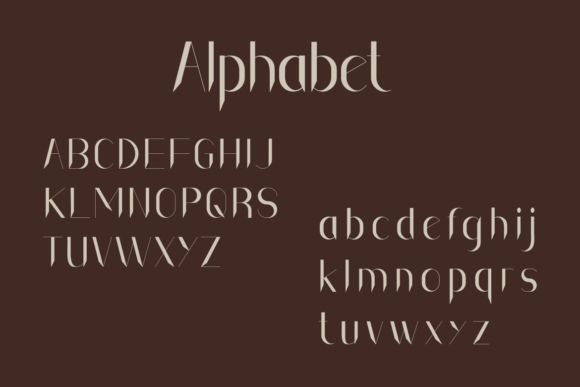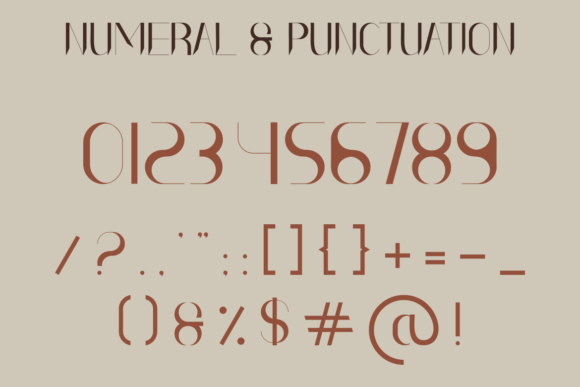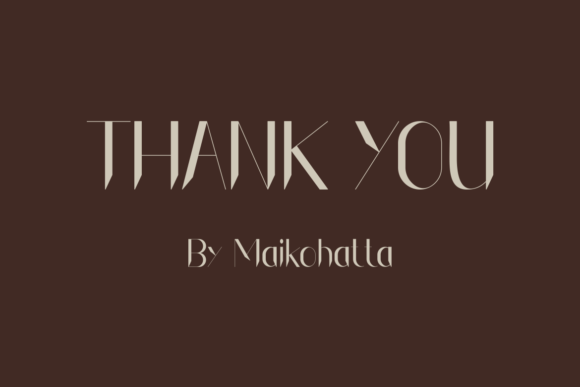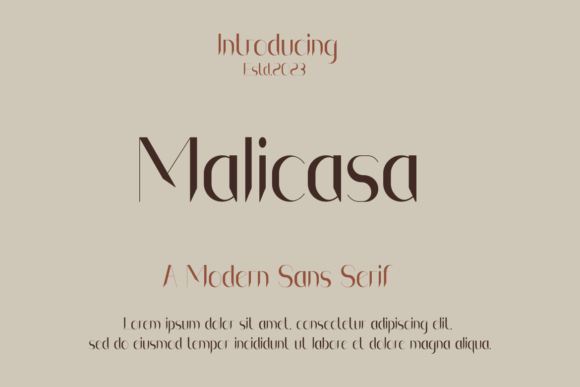
Introduction to Malicasa Font
Malicasa is a bold and authentic display font.
The font is suitable for any branding project like logo, t-shirt printing, esports, and many more outstanding in a wide range of contexts.
Key Features of Malicasa Font